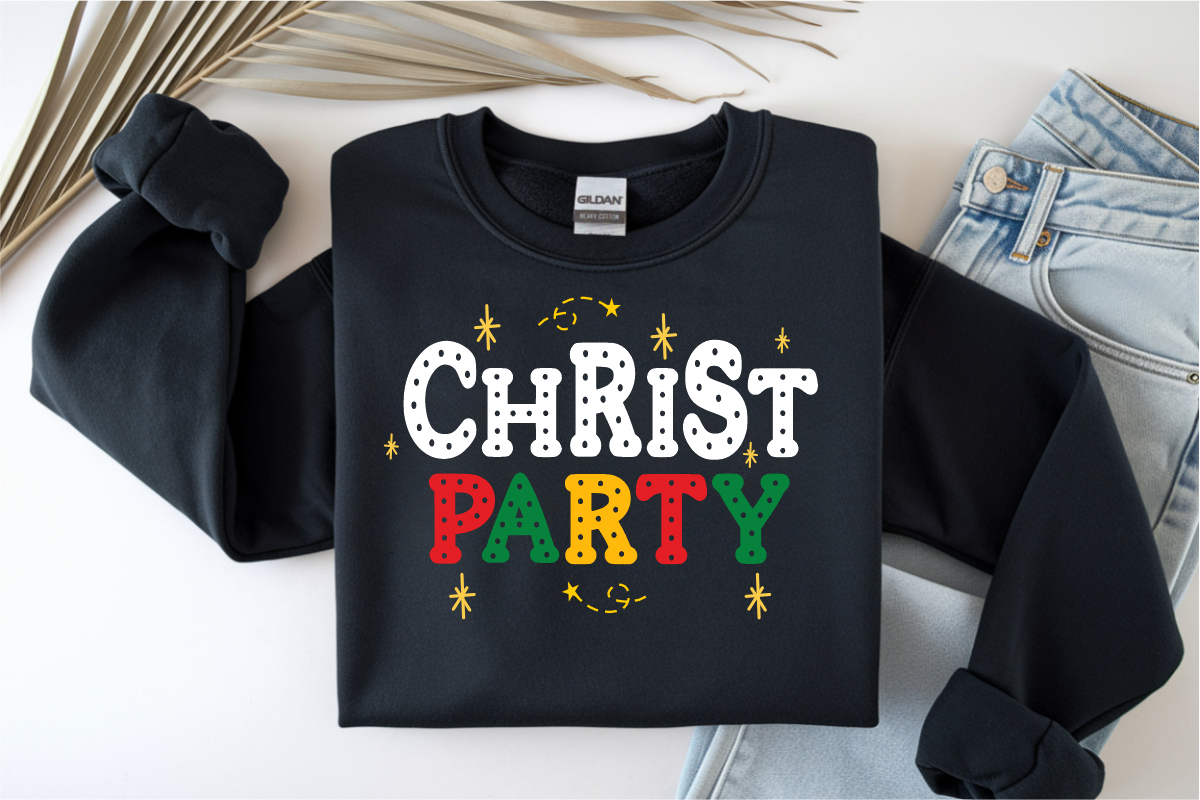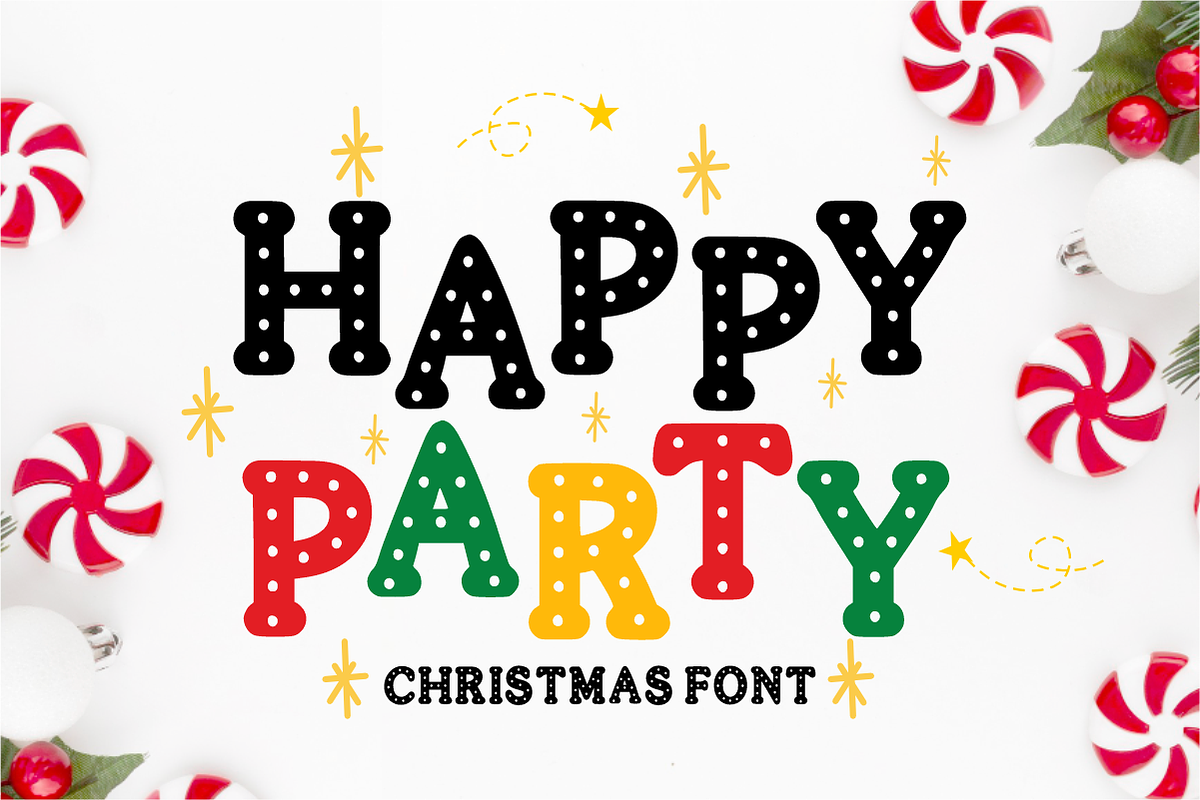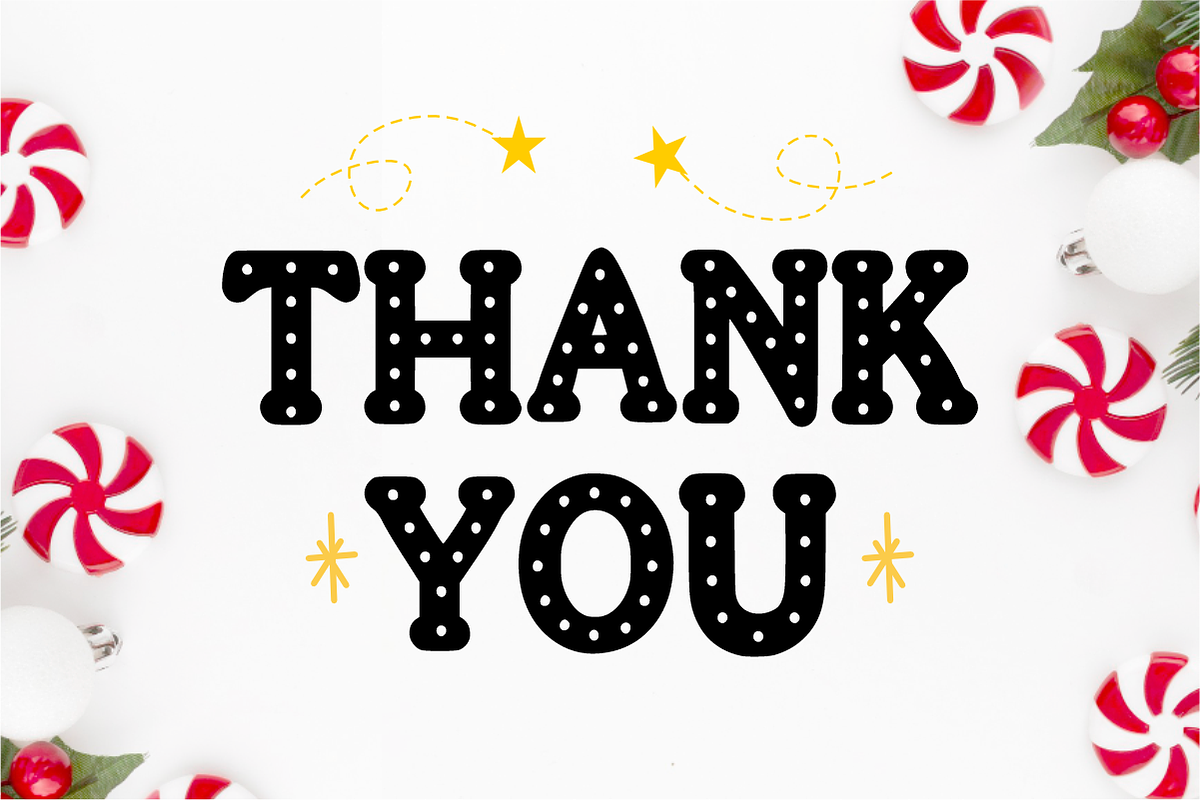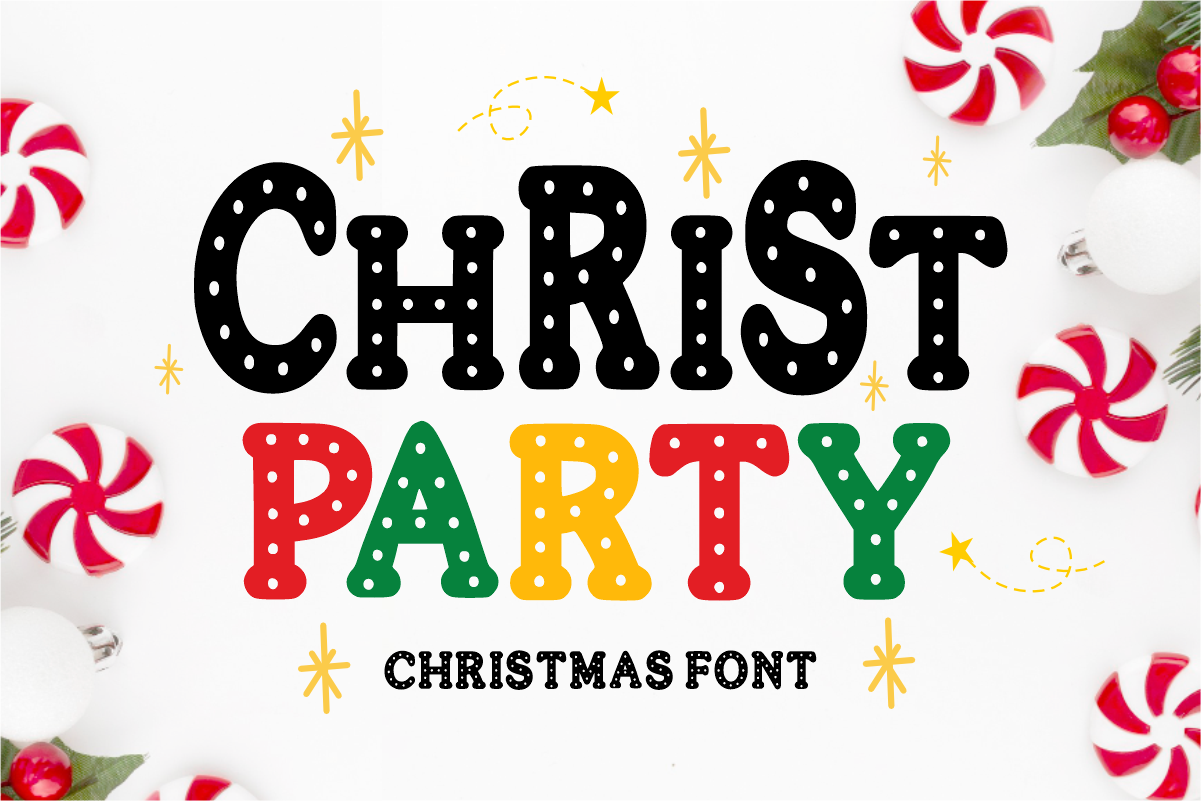
Christ Party - Christmas Font
Christ Party is a festive, cheerful display font featuring bold, rounded letters filled with playful polka dot patterns reminiscent of holiday lights and winter snow. Perfectly designed for Christmas celebrations, holiday party invitations, and seasonal crafts, this whimsical font adds an instant joyful pop to any headline. Every character is cleanly vectorized to guarantee smooth, effortless cutting on Cricut and Silhouette machines.
Ideal For:
Christmas party invitations, holiday greeting cards, and gift tags
Festive custom stickers, labels, and planner decals
Winter holiday banners, seasonal signage, and cake toppers
Kids' winter apparel, holiday mugs, and custom merchandise
Classroom decorations, winter posters, and teacher resources
Cricut, Silhouette, and DIY vinyl crafting projects